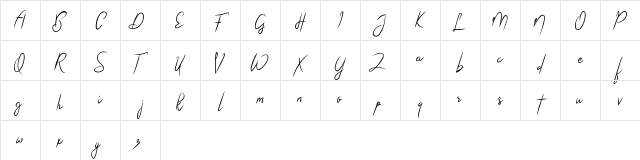
Arthegos Demo Free Font
Arthegos Demo
Design Context for Arthegos
Arthegos is a composed and adaptable typeface that performs quietly and consistently across a wide range of design contexts.